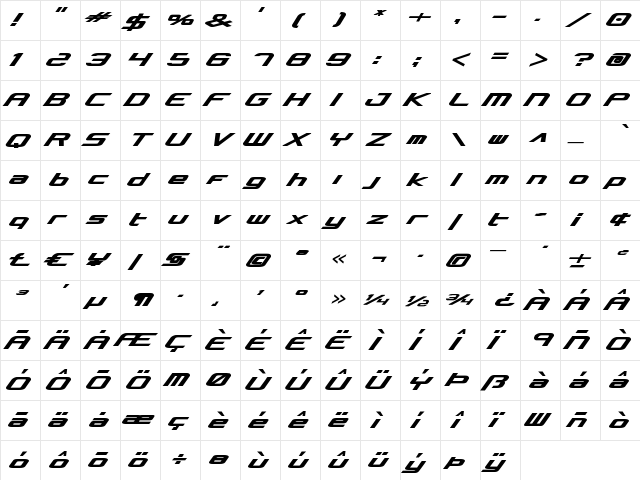
Concielian Classic Bold Bold Font Preview
Concielian Classic Bold Bold
Concielian Classic Bold Bold Font Details
Design Context for Concielian Classic Bold Typeface
Concielian Classic Bold has the warm character of retro typography — evoking diners, record sleeves, and the golden age of print advertising. The heavy weight commands attention and anchors typographic hierarchies.